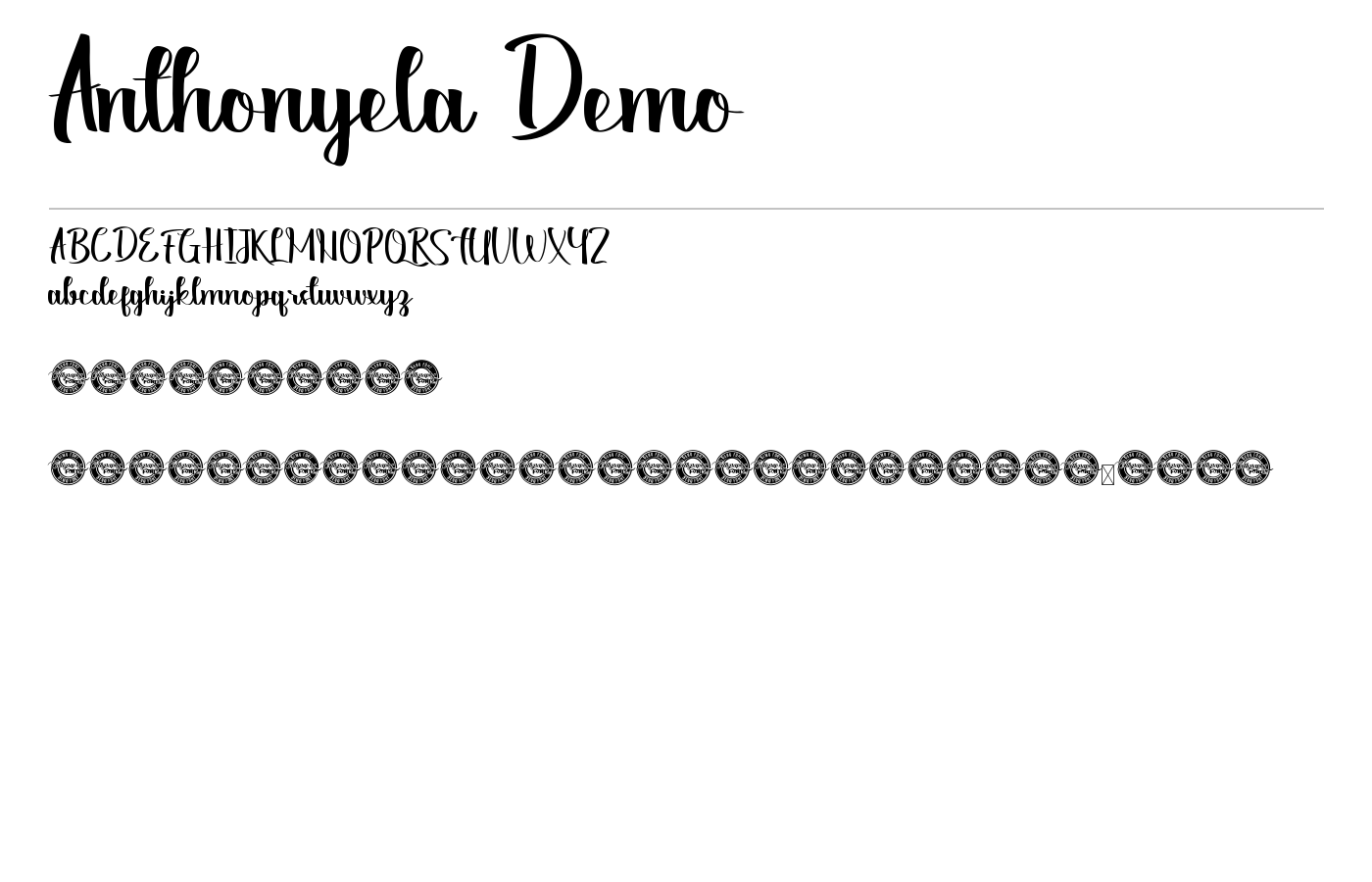
Anthonyela Demo is a charming script font with a hand-lettered feel, featuring smooth, flowing strokes and playful, slightly irregular letterforms that bring warmth and creativity to any design. Its medium weight, moderate contrast, and elegant cursive style make it ideal for invitations, branding, and projects that want to convey a friendly yet sophisticated personality. This font works best in headlines or display uses where its unique character can truly shine.
Anthonyela Demo Font
About Anthonyela Demo Font